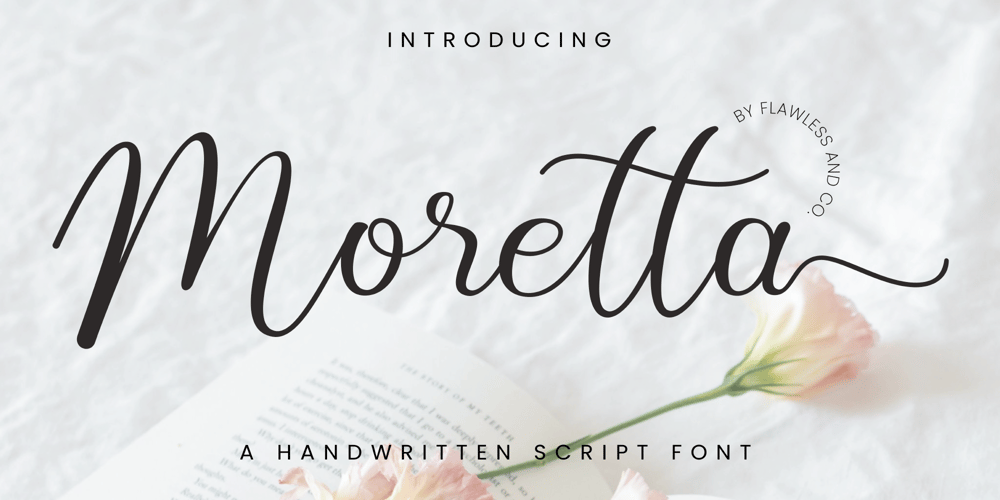
Moretta
Moretta font
Moretta Font Family was designed by Achmad Yani and published by Flawlessandco. Moretta contains 1 styles and family package options. Morettaa is a handcrafted script, this style gives a feel of girly and Modern font type.An Original typeface that suitable for any graphic designs such as branding materials, t-shirt, print, business cards, logo, poster, t-shirt, photography, quotes .etcThis font support for some multilingual. Modern Sweet Retro that contains uppercase A-Z and lowercase a-z, alternate character, numbers 0-9, and some punctuation.If you need help, just write me! Thanks so much for checking out my shop!